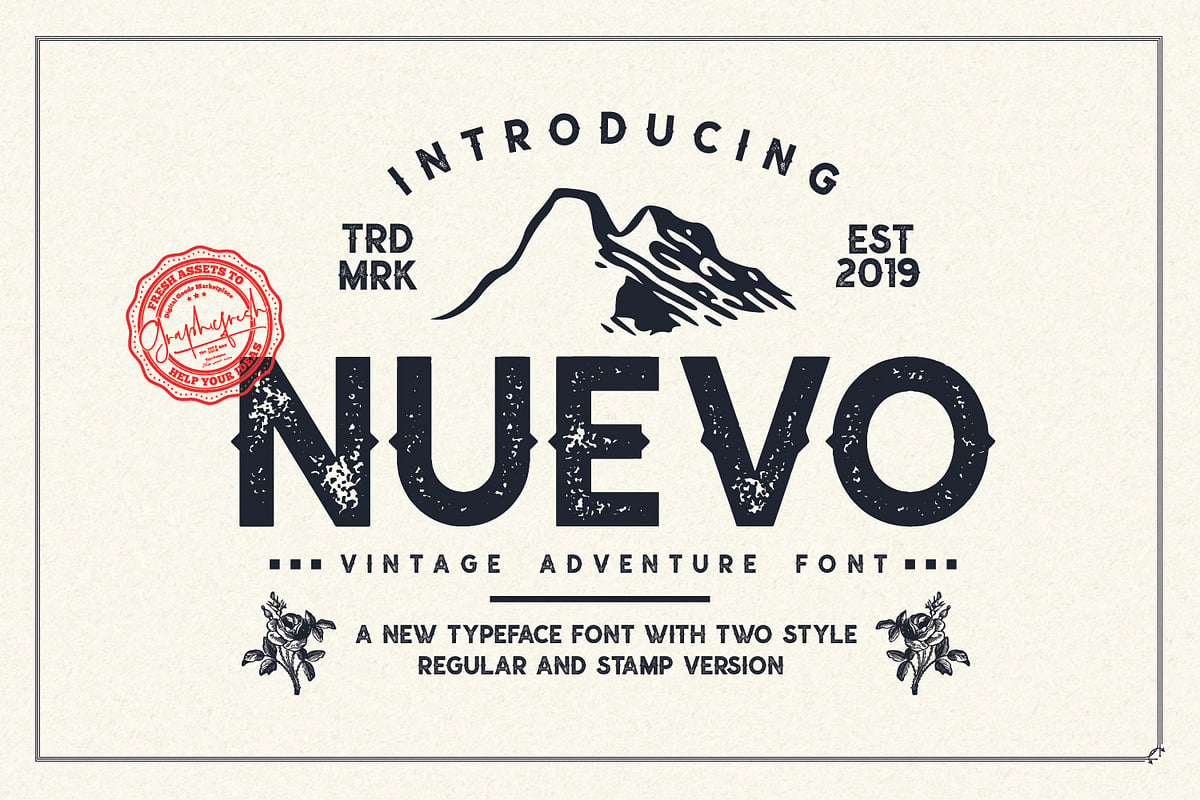
Nuevo - Vintage Adventure Font
Rugged, textured, and built for bold creative work — Nuevo is the vintage adventure font your designs have been waiting for.
Nuevo is a vintage display typeface that captures the spirit of exploration and old-school craftsmanship. It comes in two versions — Regular and Textured — giving you the flexibility to go clean or worn depending on your project.
Perfect for:
- Logos and brand identities
- Name cards and business stationery
- Magazine layouts and editorial headers
- Invitations and event materials
- Large-scale artwork and signage